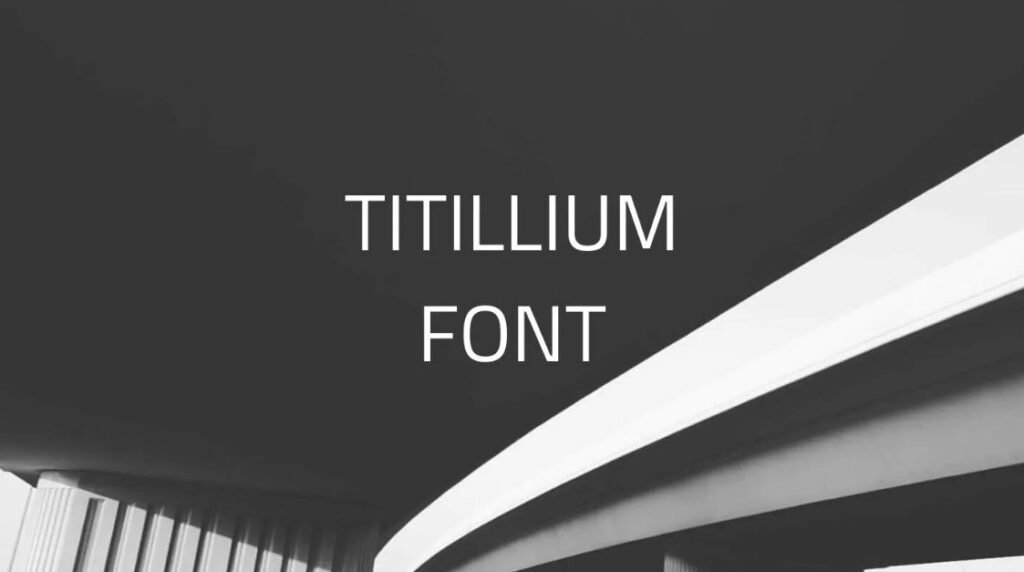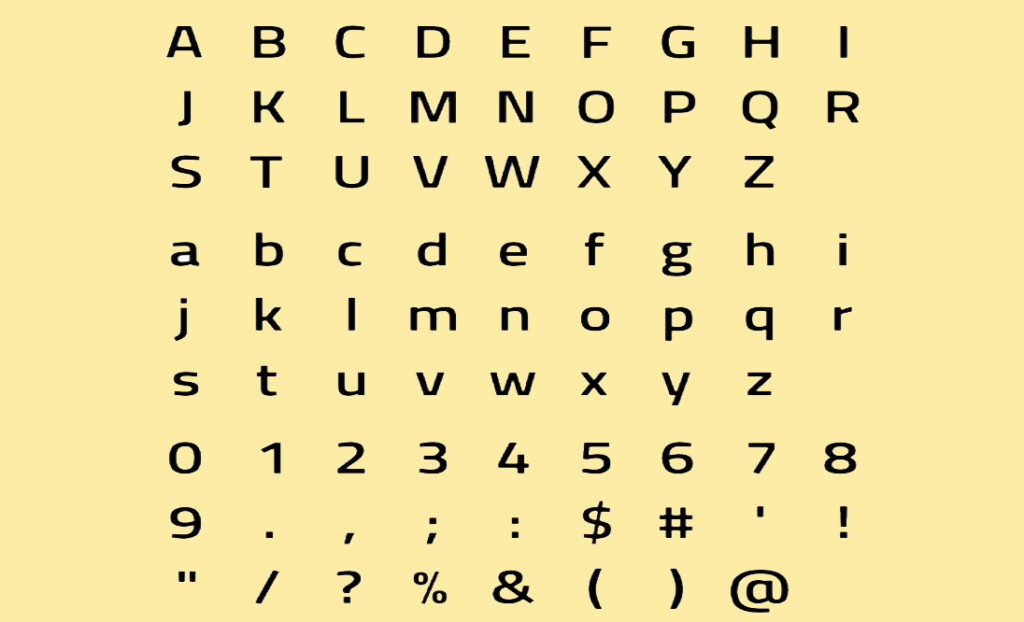
Titillium Font stands out and is practical for any designers needing a bold and contemporary sans-serif typeface.
Because of boundless opportunities in marketing and web design, it’s no surprise that creativity professionals such as UI/UX designers and marketers love using Titillium Font – it’s modern, refreshing, and easy to read.
In this article, I’m going to take you through all the relevant information about Titillium Font, explaining why it’s so sought after, some of its characteristics, practical applications, and ways to incorporate it in improving your designs.
What is Titillium Font?
Titillium font ,Founded by a team of students and professors in the Accademia di Belle Arti di Urbino, Italy, has become one of the most commercially popular modern fonts due to its ease of access.
The intention that came with this font design was that it would obtain contributions from many different designers over time. Which explains why many people think the font is so versatile.”
Titillium is characterized by:
- Clean, geometric lines
- Minimalist, modern design
- High legibility across print and digital platforms
Among all capabilities included in google fonts database, types in Titillium sans, Titillium regular, Titillium bold and Titillium light all showed remarkable precision, proving how the font family is perfectly adaptable for various projects.
Features of Titillium Font
Here’s what makes Titillium Font a top pick among designers:
- Wide Range of Weights: From Titillium light font to Titillium bold font, the family covers multiple weights for different moods and applications.
- Excellent Legibility: Designed to be highly readable even at smaller sizes, perfect for both digital and print use.
- Modern and Neutral Aesthetic: Its clean design complements a wide range of industries—from tech startups to educational institutions.
- Multilingual Support: Covers a broad set of international characters, making it suitable for global brands.
Applications of Titillium Font
Thanks to its versatility, Titillium Font fits into a wide variety of design applications:
- Branding & Logo Design: Its sleek lines give brands a clean, trustworthy look that’s modern yet approachable.
- Web & UI Design: The Titillium Web Font ensures fast loading times and crisp text on all devices, making it ideal for websites, apps, and dashboards.
- Print Media: Use Titillium regular font for brochures, flyers, posters, and other marketing materials.
- Educational and Institutional Projects: Thanks to its clarity and neutrality, it’s often used by universities, tech companies, and non-profits.
Conclusion: Titillium Font
Titillium Font makes a great addition to the list of elegant, modern sans-serifs because it is easy to use and functional.
Its many styles, good legibility, and being open-source make it a popular choice among designers from various fields.
Whether you are updating a brand image, developing a site, or designing printed promotional products, the Titillium font family provides an aesthetic and reliable option.